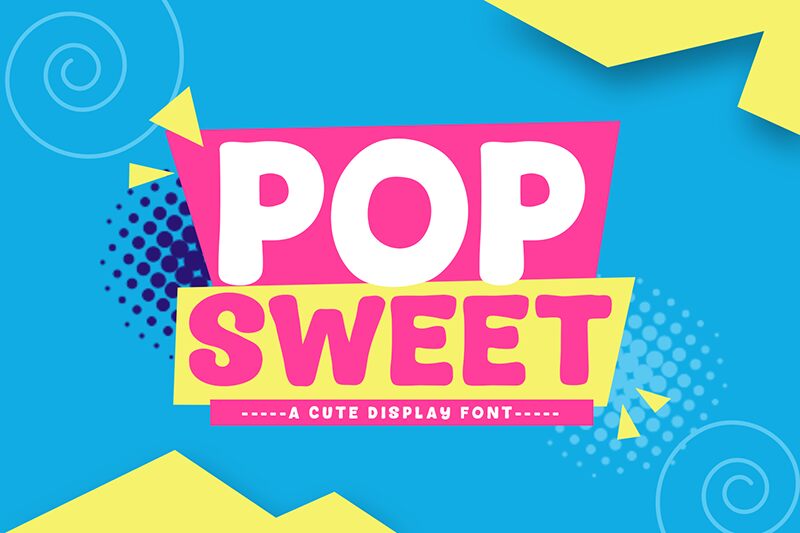
Pop Sweet
Pop Sweet font designed by Khurasan is a modern display font bringing a hint from the past with its whimsical retro-inspired style. Its bold letters stand out in subtle playfulness channeling old-school signage and band posters. Use it as a main headline font for large-sized text that requires attracting attention.
Classic banner designs, merchandise packages, book covers, video games, branding, special events and movie posters are few places to consider Pop Sweet. The cartoon title with bold visuals matches perfectly kids-focused works including birthday invitations or school projects.